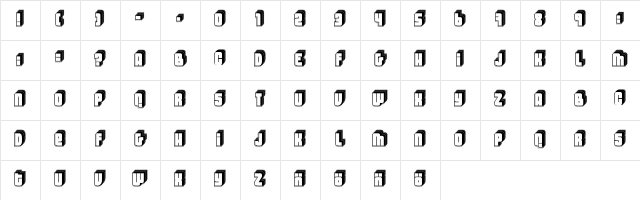
Letters II Fenotype
Style: Fenotype
Letters II Family
Letters II Fenotype
Design Context for Letters II
Letters II is a composed and adaptable typeface that performs quietly and consistently across a wide range of design contexts.